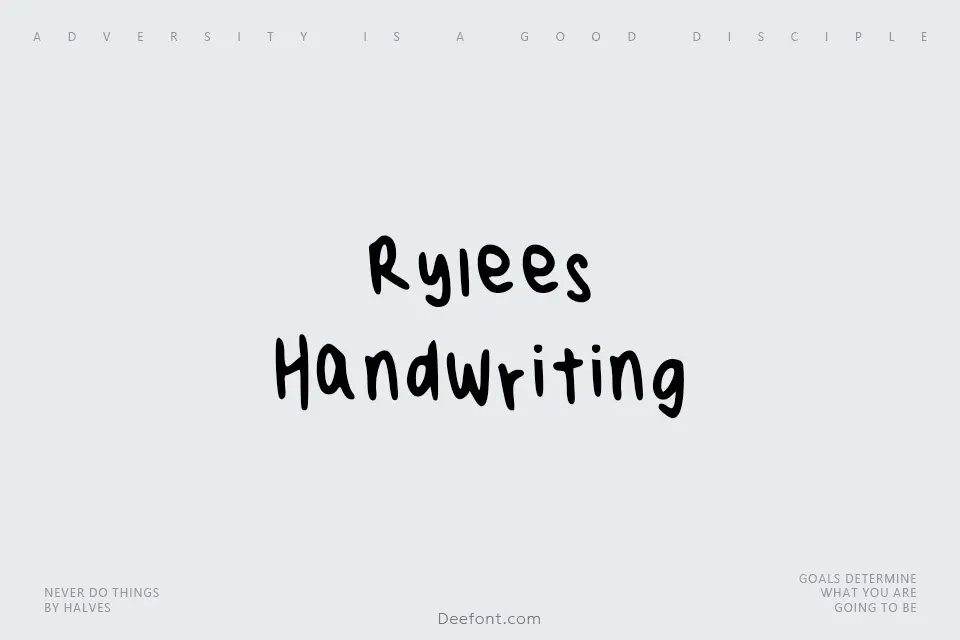
Rylees Handwriting Font
Rylees Handwriting is a casual, authentic script typeface designed to emulate natural pen-and-ink handwriting with flowing curves and organic character forms. This versatile handwritten display font features genuine handwriting style with smooth strokes, making it ideal for greeting cards, wedding invitations, poster headlines, logo designs, branding projects, and creative signage. The font’s relaxed penmanship aesthetic conveys warmth and personal touch, perfect for both formal stationery and playful display applications across digital and print media.